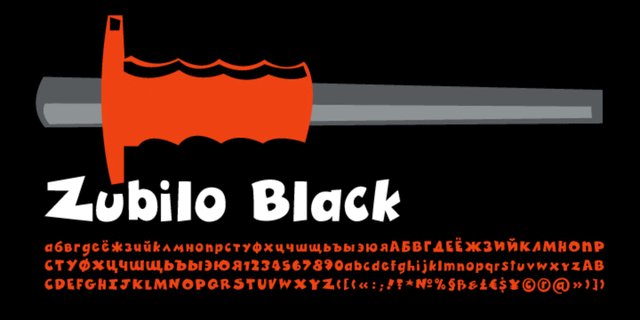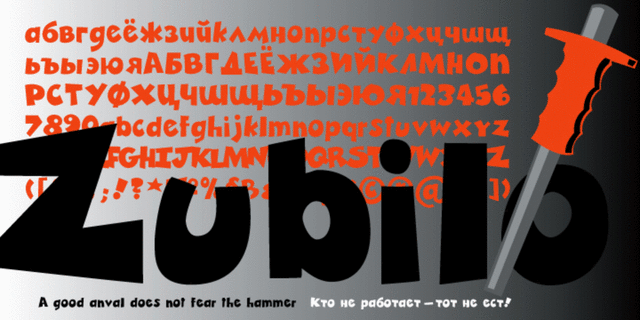
Zubilo (4 fonts)
About ZubiloZubilo is an informal decorative sans serif designed by Gennady Fridman basing on an informal lettering and released by ParaType in 2004. In Russian "Zubilo" means "Cold cutter" or "Chisel". Colorful letterforms seem to be cut by an amateurish but strong hand used to rough metal tools, not a pen or pencil. The face is good for advertisements, posters and headlines, especally for comic editions and youth press. Decorative styles were added in 2011 by the same author.
Associations for font family ZubiloTypeface personality and character:
funny, cheerful, quarrelsome, slovenly, naive, solid, chopped, home-made, informal, madcap, agile, leaping, alive, naughty, sharp, heavy, rude, cutting, original, distinctive, notable, splashy, voiced, uncouth, uneven, idle, walking, mischievous, spoiled, angular, children, cartoonish, witty, summer, vernacular, boyish, playful, flickering, careless, nervous, illusory, throbbing, psychedelic, flat
Cartoon, animation, humor, school, camp, activities circle, pencils, toy, children's book, coloring, spice, game, zoo, pet shop, animals, recreation, diary, notebook, circus, bazaar, kindergarten, matinee, pepper, graphics, illustration Typeface associated with age: